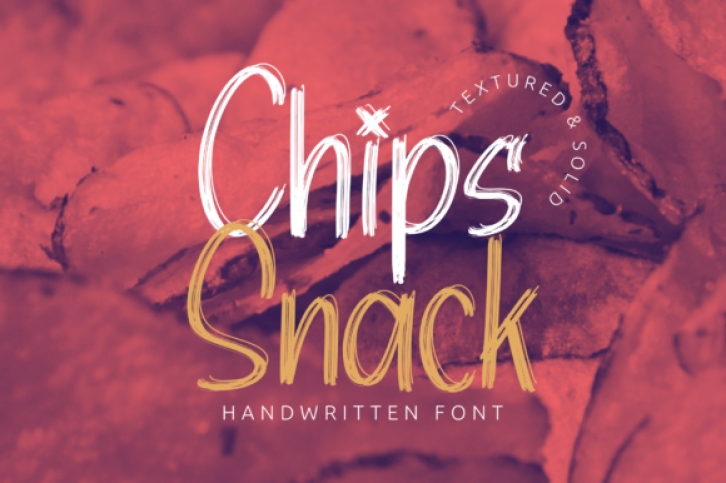
Chips Snack is a strong and playfully contemporary script font that radiates energy. This script will allow you to create a huge variety of designs, ranging from titles and headlines to logos or posters. It will deliver any message with confidence, authenticity and style!